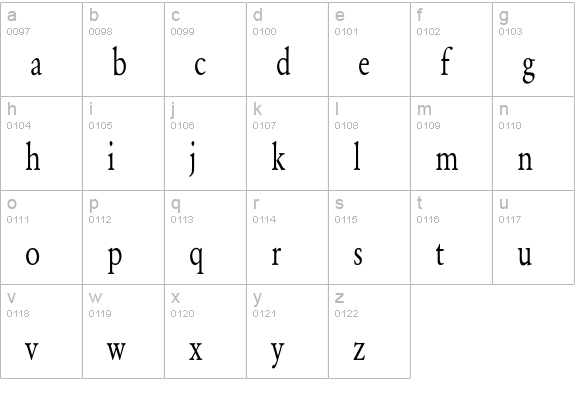
Yearlind-Normal Condensed Font Details
Yearlind-Normal Condensed is the standard, neutral, condensed-width variant in the Yearlind typeface family \xE2\x80\x94 well suited to general body text, paragraphs, and standard typographic work.
Yearlind-Normal Condensed is a sleek and modern typeface that exudes sophistication and versatility. Its condensed design allows for efficient use of space while maintaining excellent readability. The sharp, clean lines of this font give it a contemporary and professional look that is perfect for a wide range of design projects. Whether you are creating a sleek branding package, designing a striking poster, or crafting a clean website layout, Yearlind-Normal Condensed is sure to make your text stand out. Its balanced proportions and elegant curves make it a versatile choice for both headlines and body text. Best of all, Yearlind-Normal Condensed is available for free download at FontsMarket.com. This means you can easily access this stylish and functional font to elevate your designs without breaking the bank. Don't miss out on the opportunity to add Yearlind-Normal Condensed to your font library today!